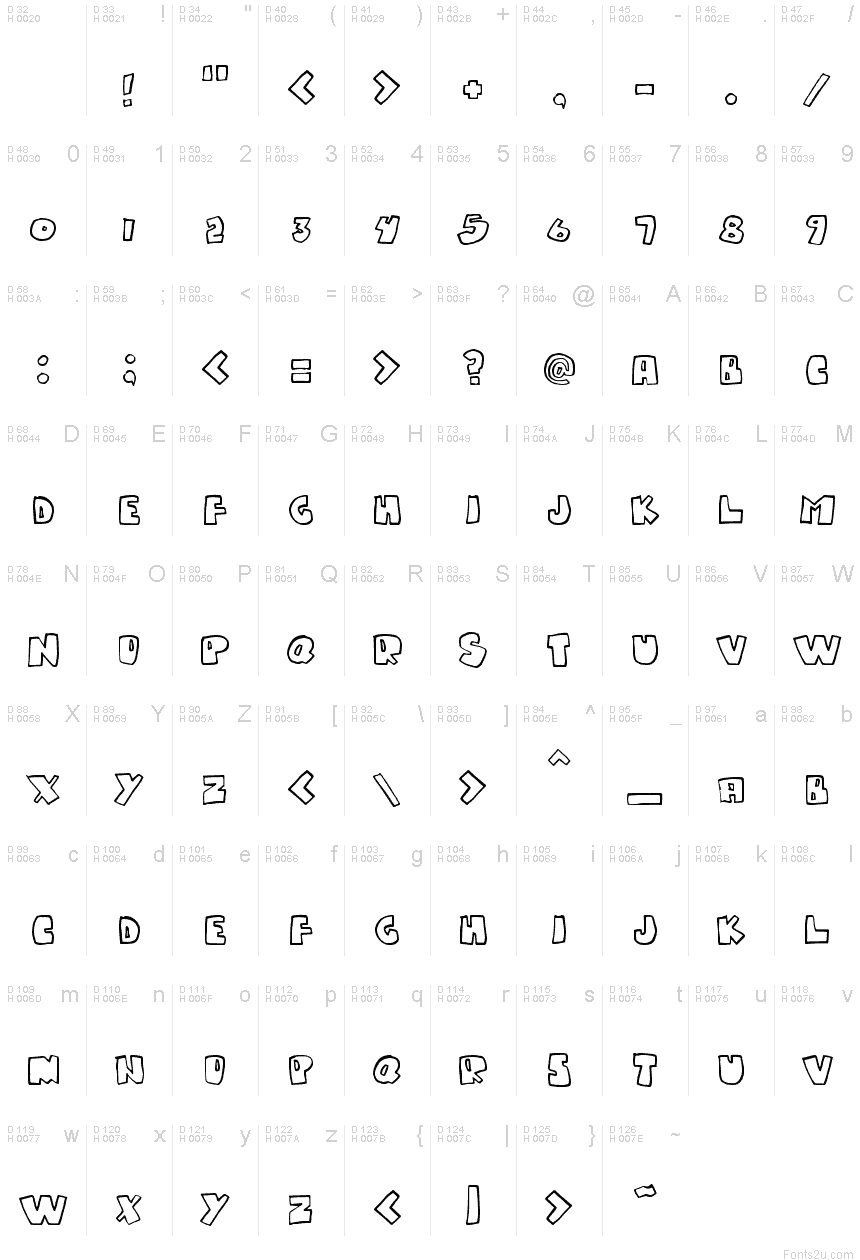
Gumpy one
Gumpy One font is a free outlined comic display typeface. Each letter looks like it’s been doodled with a thick marker—puffy, slightly wobbly, and full of energy. The hollow interiors invite color, textures, or photos, so you can fill the shapes or leave them airy and bold in simple black and white.
Using Gumpy One, your titles snap to attention on kids’ book covers, birthday invitations, school posters, cartoon openings, stickers, and YouTube thumbnails. This free font shines at large sizes where its chunky outlines and playful rhythm can really breathe. For body copy, pair it with a clean rounded sans at a smaller size to keep everything fun but still easy to read.